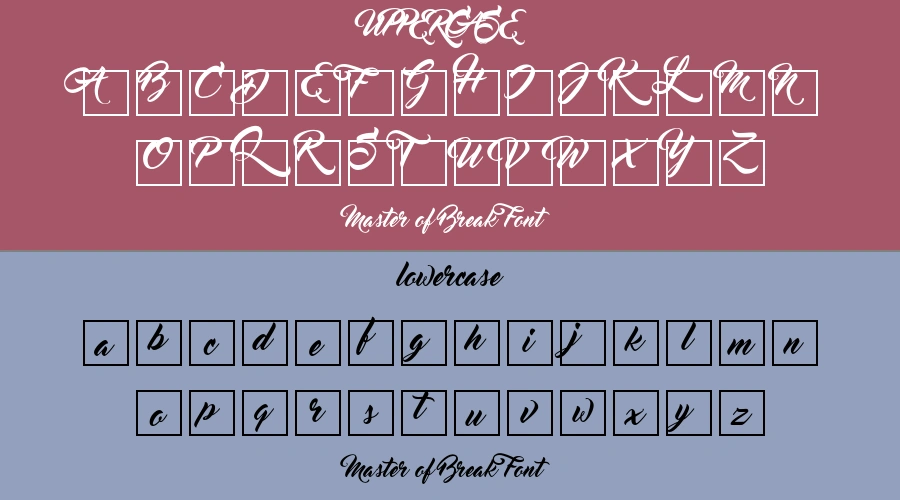
About Master of Break Font
Designed with precision, Master of Break Font merges sharp edges with textural richness in every character. This versatility makes it particularly effective for classic books, where versatility and technical mastery directly impact communication quality. Each letterform demonstrates meticulous craftsmanship.
Technical excellence shines through elements like angled joins and classic proportions, enhancing typographic versatility. In pull quotes settings, Master of Break Font proves its worth through superior kerning accuracy. The thoughtful execution of cap height ratio and cultural references ensures professional results.
Master of Break Font |